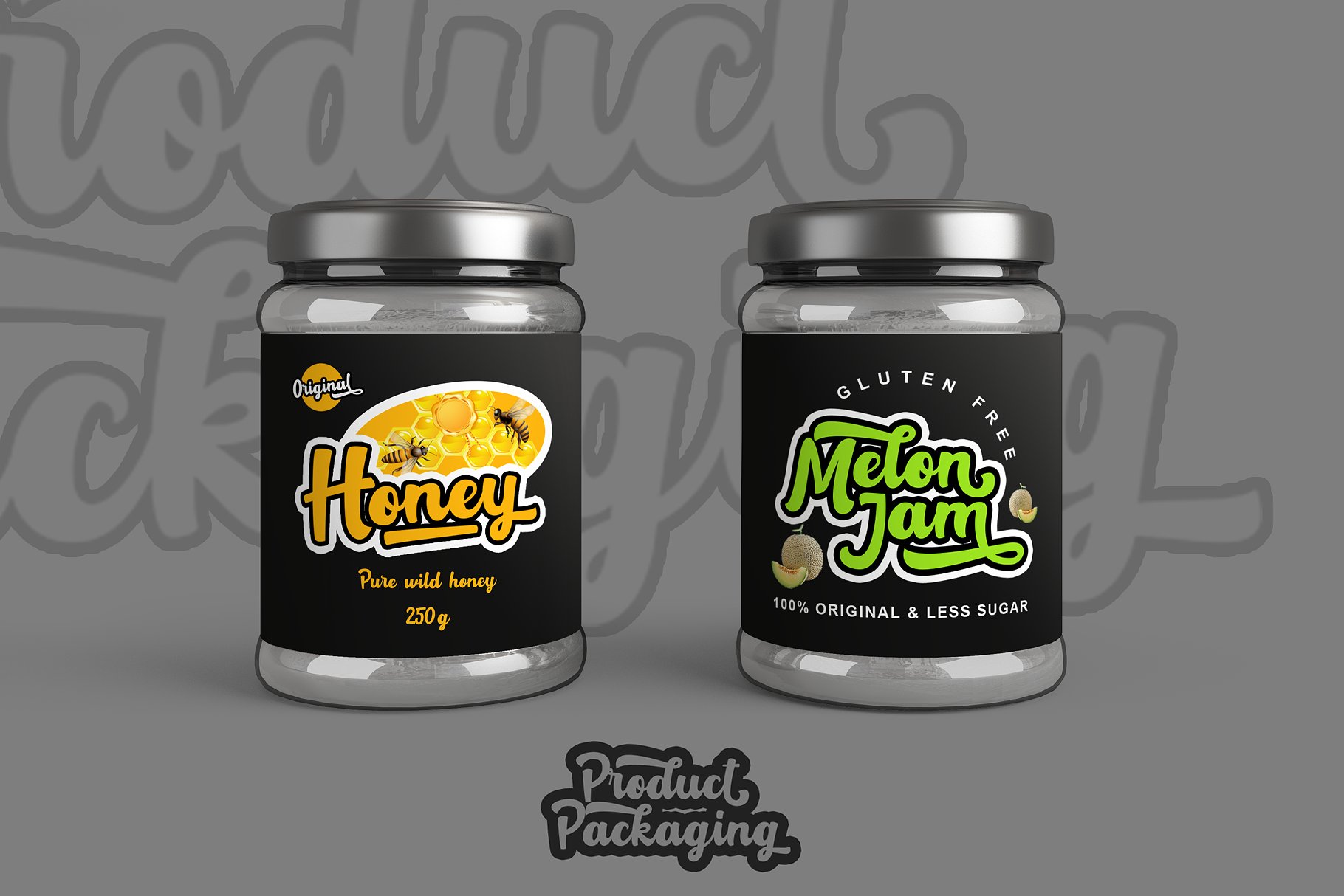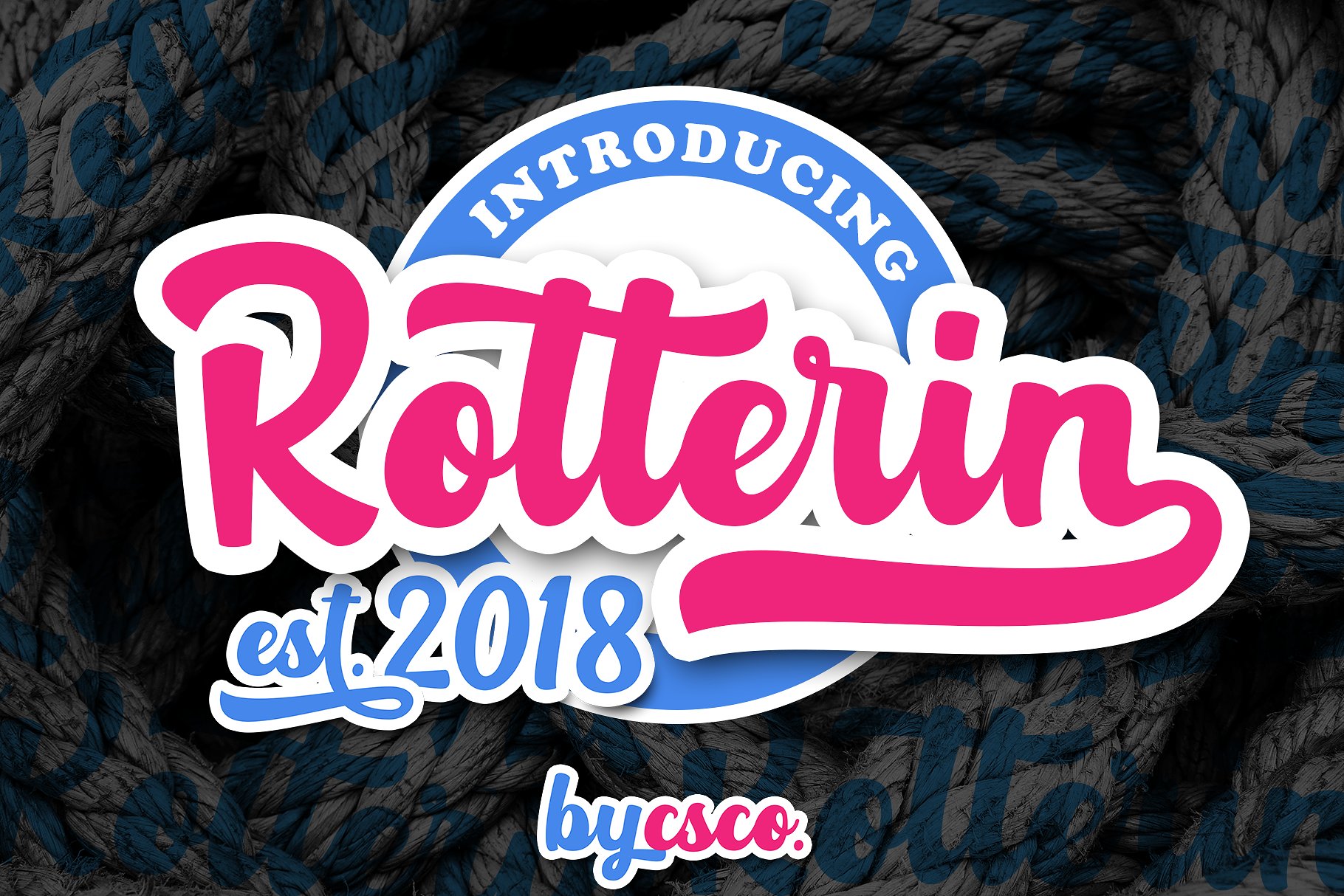
Rotterin Brush
Rotterin Brush Font
Rotterin is layered script font, Rotterin is suitable for cricut sticker, Logo, greeting cards, quotes, sticker, posters, branding, name card, stationary, design title, blog header, art quote, typography art, modern envelope lettering or book design.